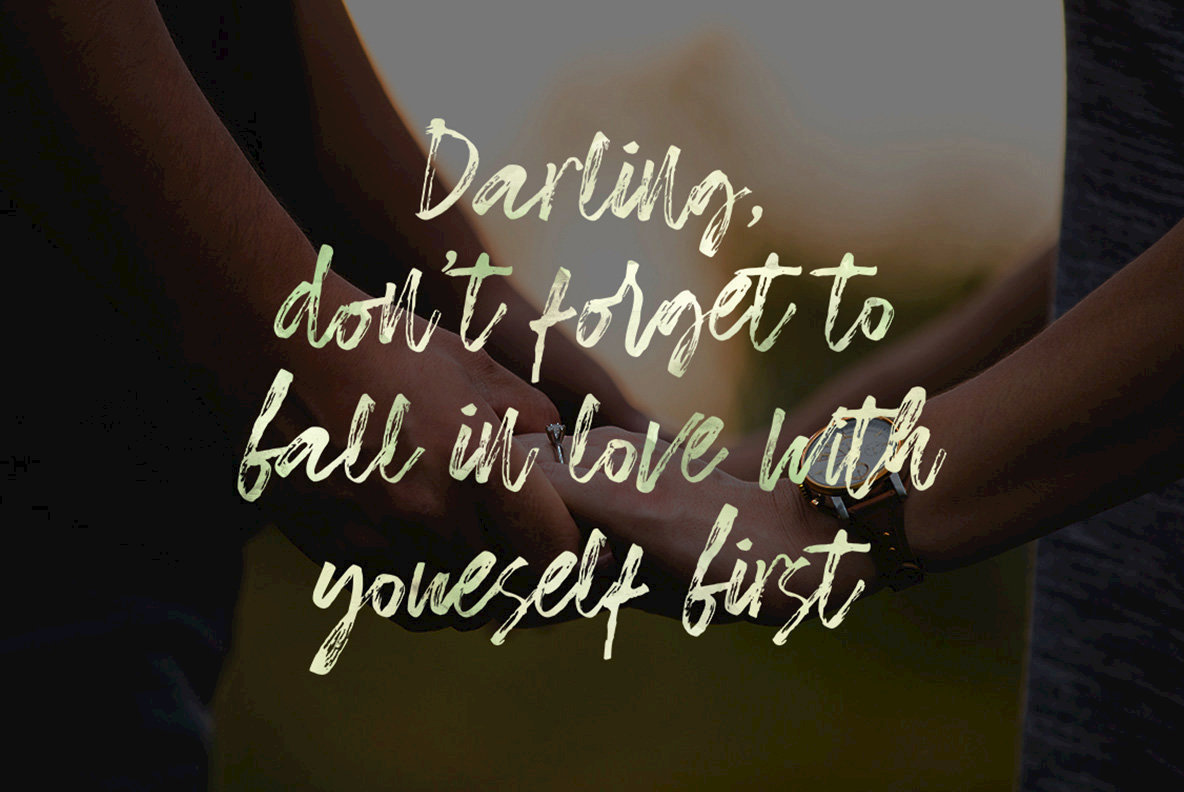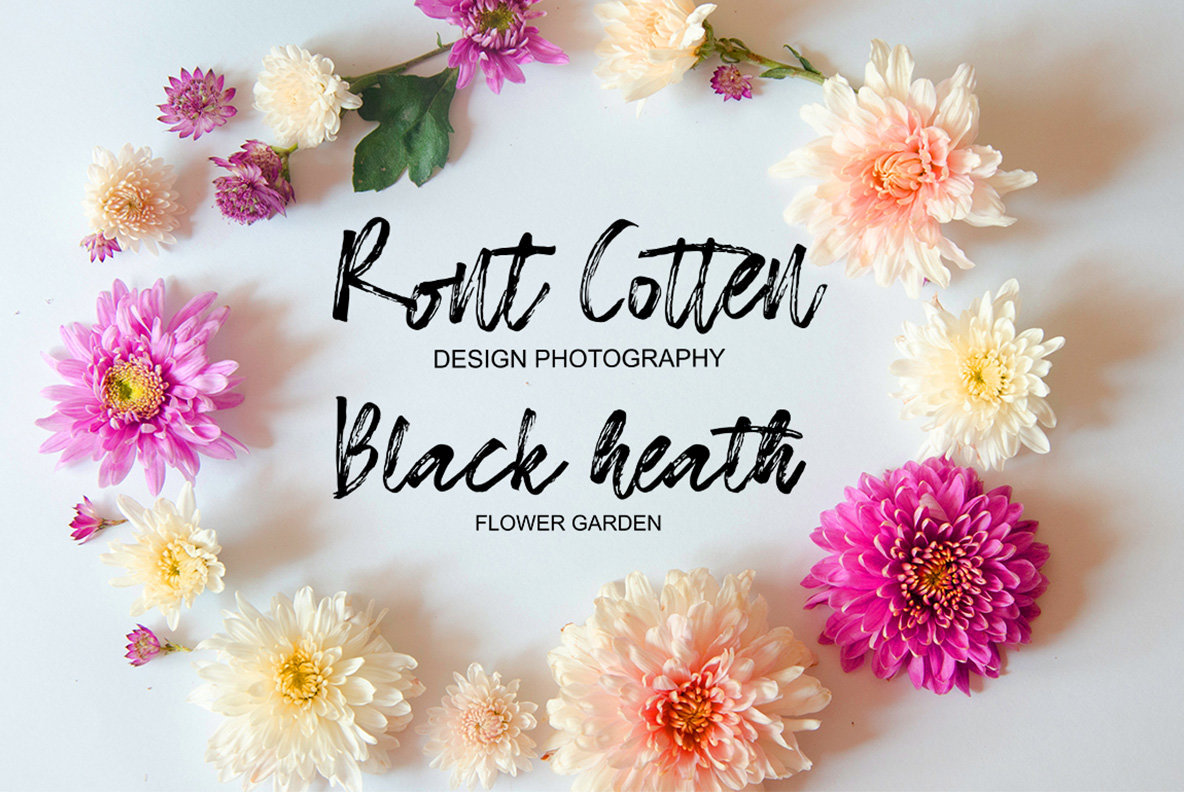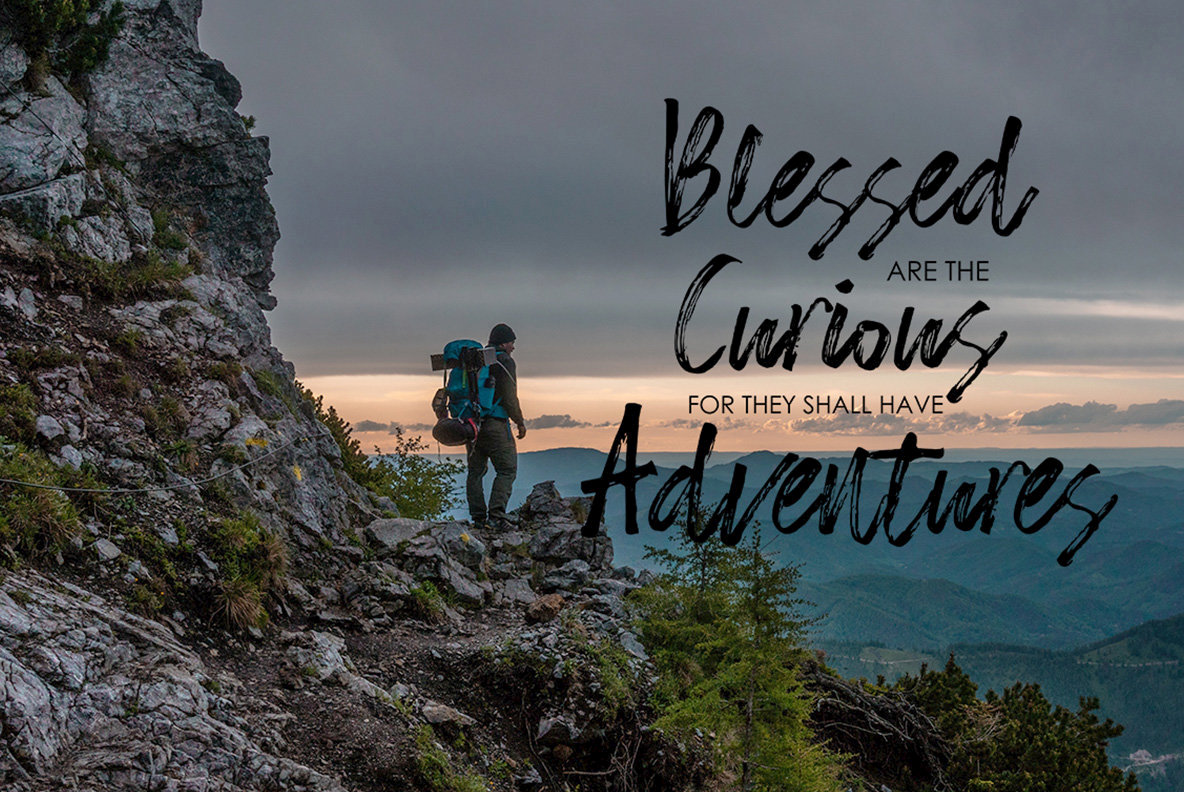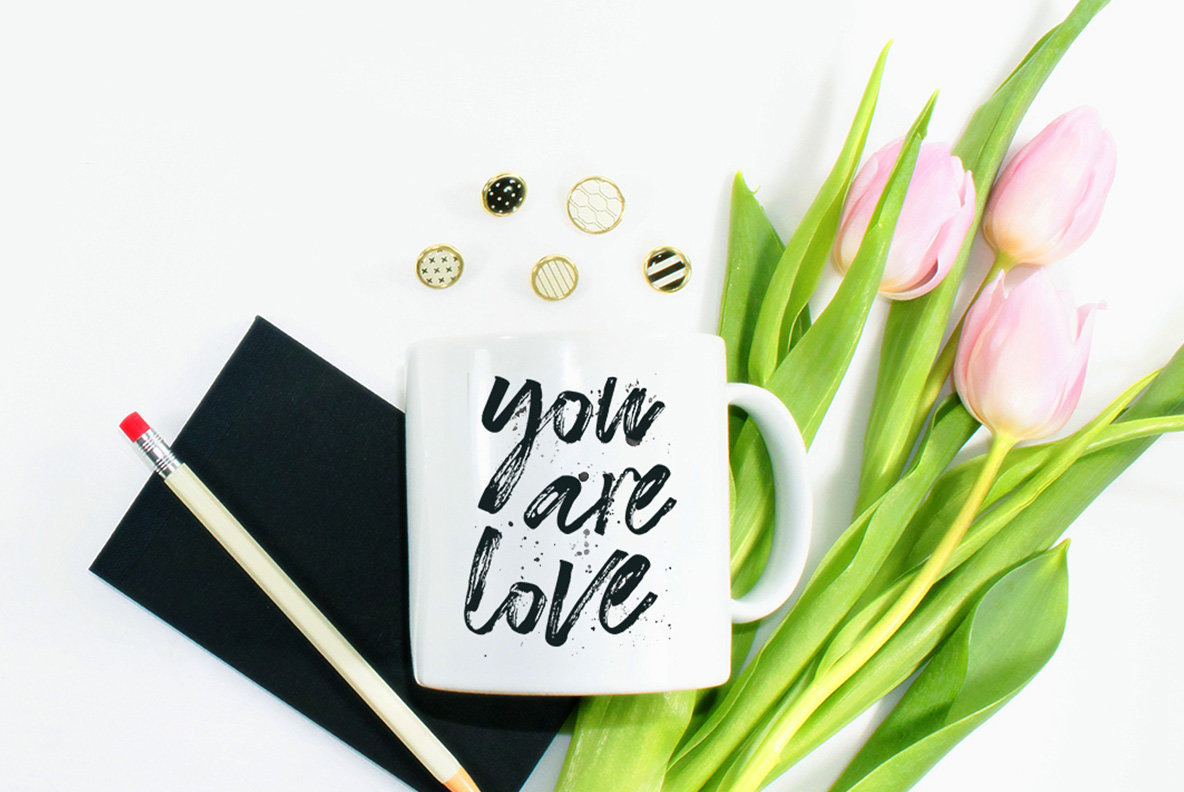
Almirra Font
Almirra
Almirra Script, designed by Akmal Yusar, captures the essence of an artfully handwritten script that flows seamlessly. With its friendly and organic feel, this font is ideal for those looking to evoke a personal, heartfelt touch in their designs. Perfect for branding, logos, product packaging, and more, Almirra Script speaks with charm and professionalism. Enhance your designs with this versatile typeface, accessible both to Mac and Windows users via standard tools like Font Book and Character Map.Almirra Script: A Signature Style with Elegance